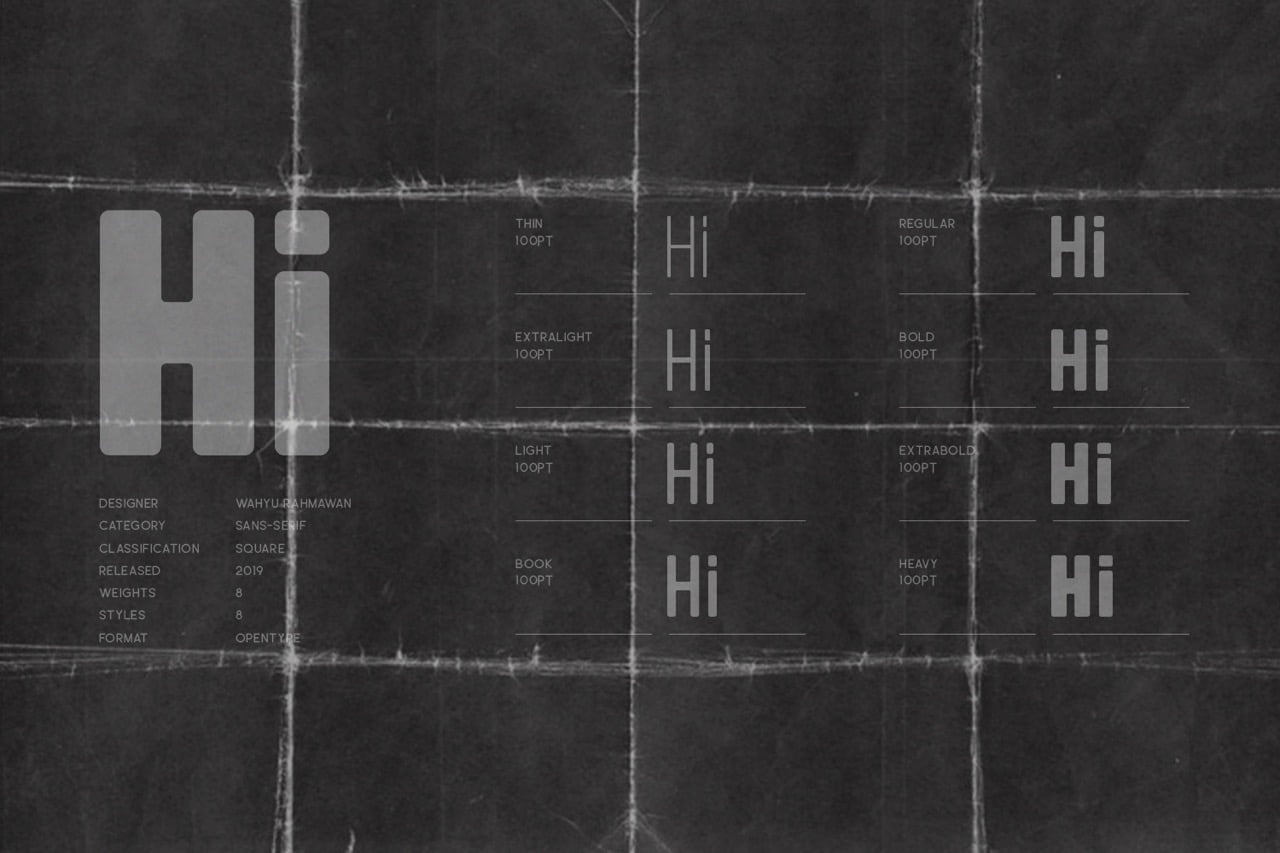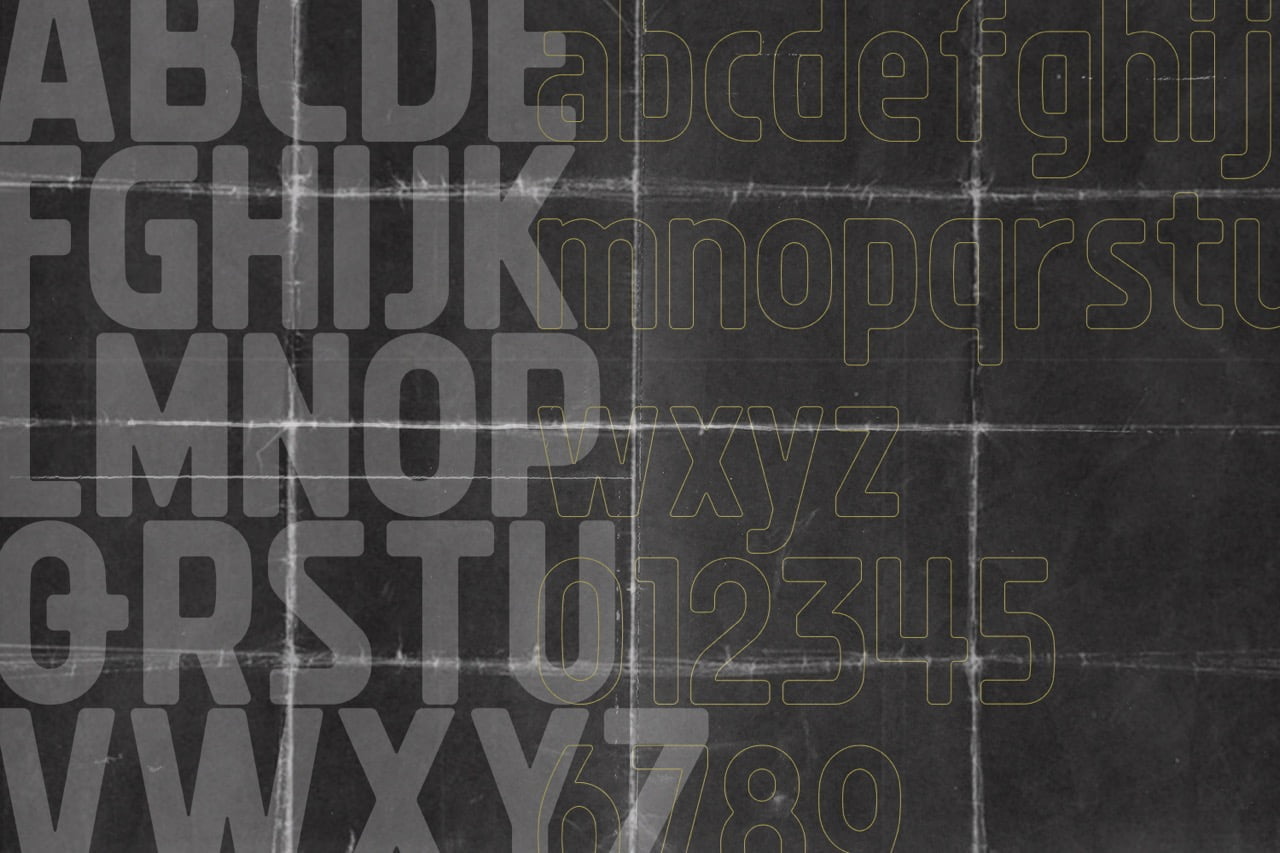
Mike Sans, a modern sans serif with a square style. The design creates more variability with clean and modern glyphs, thereby creating more versatility. The font comes in 8 weights, perfectly suited for any display use.
Mike Sans